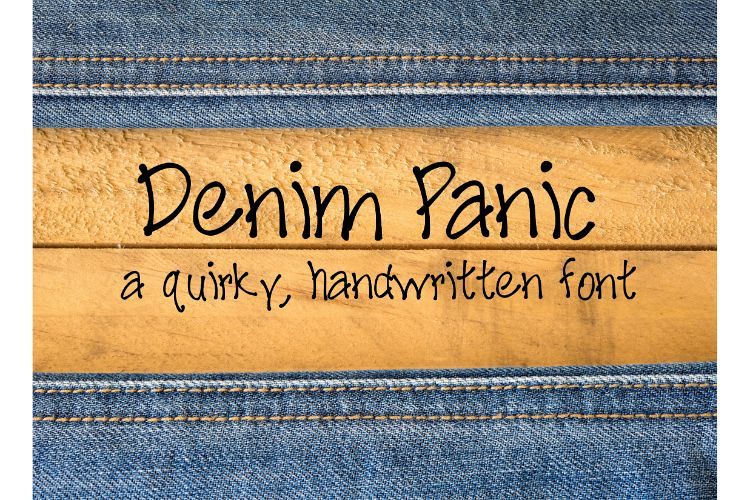
Denim Panic Handwritten Font
Denim Panic is the perfect font for your quirky projects. Listing included Uppercase, Lowercase, Numbers, Symbols and Punctuation. TTF file included.